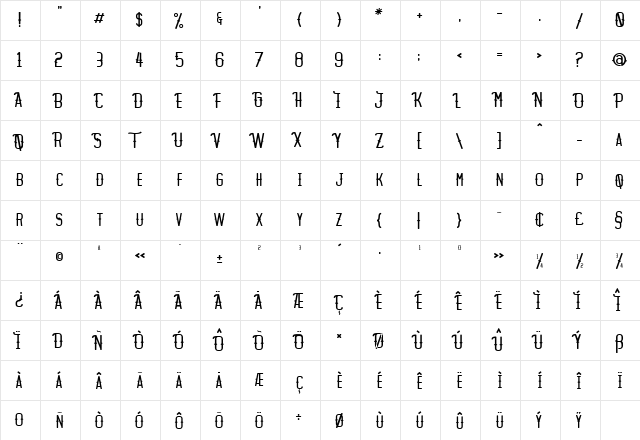
Motopica Regular
| Foundry | Krisna Teja |
| Designer | Krisna Teja |
Design Context for Motopica Typeface
Motopica offers clean, dependable letterforms without strong stylistic allegiance, making it a practical choice for designers who need flexibility.